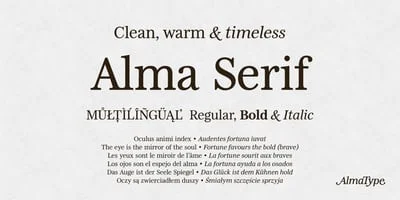
Alma Serif Font
Alma Serif Font is perfect for scholarly design projects including academic publications, university branding materials, research journal layouts, educational institution signage, library systems, book publishing houses, intellectual property firms, and prestigious learning campaigns. This distinguished typeface excels in scholarly conferences, academic conferences, educational consultancies, literary magazines, and projects that celebrate intellectual excellence and academic achievement.
What makes Alma Serif Font exciting is its refined academic character that perfectly captures the essence of scholarly wisdom and intellectual sophistication. The font features classical serif letterforms with academic proportions that reflect the timeless tradition of higher learning and scholarly discourse. Its dignified design elements embody the spirit of intellectual pursuit and educational excellence, making it perfect for projects that need to convey authority, credibility, and connection to academic heritage. The carefully crafted serif details create an atmosphere of scholarly refinement and intellectual prestige.
Alma Serif Font comes in multiple family variations including light, regular, medium, bold, and italic styles. Each weight maintains the distinctive academic character while offering different levels of scholarly presence and intellectual authority. The font family includes academic alternates, scholarly ligatures, and educational variations that provide designers with comprehensive options for creating truly authoritative and intellectually resonant typographic compositions that honor learning traditions.
Whether you're designing academic branding, creating educational marketing materials, or developing scholarly promotional graphics, Alma Serif Font provides the perfect typographic foundation for projects that celebrate intellectual excellence and academic achievement. This exceptional typeface transforms ordinary text into compelling expressions of scholarly wisdom and educational authority. Download this distinguished font today and educate your design projects with the academic elegance and intellectual sophistication that captures the eternal spirit of learning and scholarly pursuit.